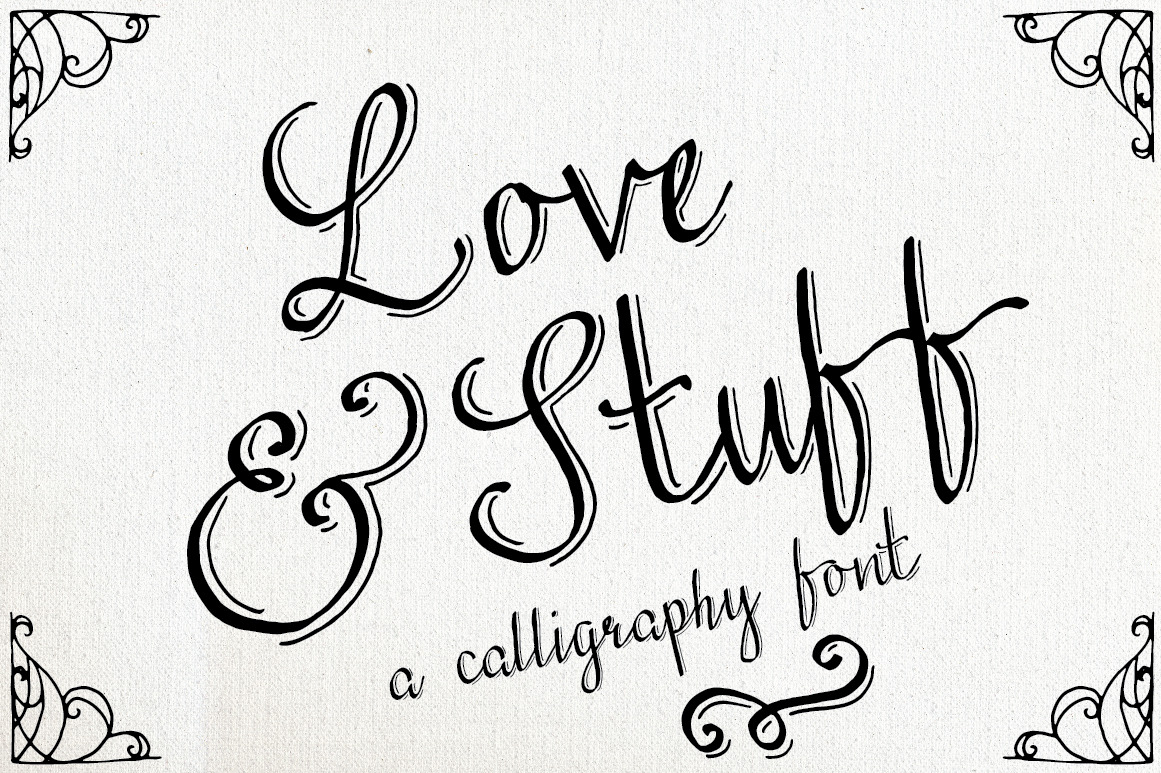
Love & Stuff - Calligraphy Font
Announcing...Love & Stuff! It's the calligraphy-lover's dream :)
Love & Stuff is a beautiful and expressive font that maintains its lighter side. It's gorgeous & calligraphic, with all the natural texture and quirk that comes from hand pulled pen and ink. The lightly stylized, vintage 3D effect makes text pop from the page! It works beautifully for wedding invitations, typography displays, branding and advertising - with a casual elegance that's very versatile.
BUT THE BEST PART IS...you get TWO fonts in one! This little beauty comes with a ton of stylistic extras, including catchwords (and, the, to, for, etc.), banners, swirls, and flourishes that are perfect for typography projects. They're easy to use and so much fun to play with! You'll love creating your own layouts and expressive word art with these matching fonts.